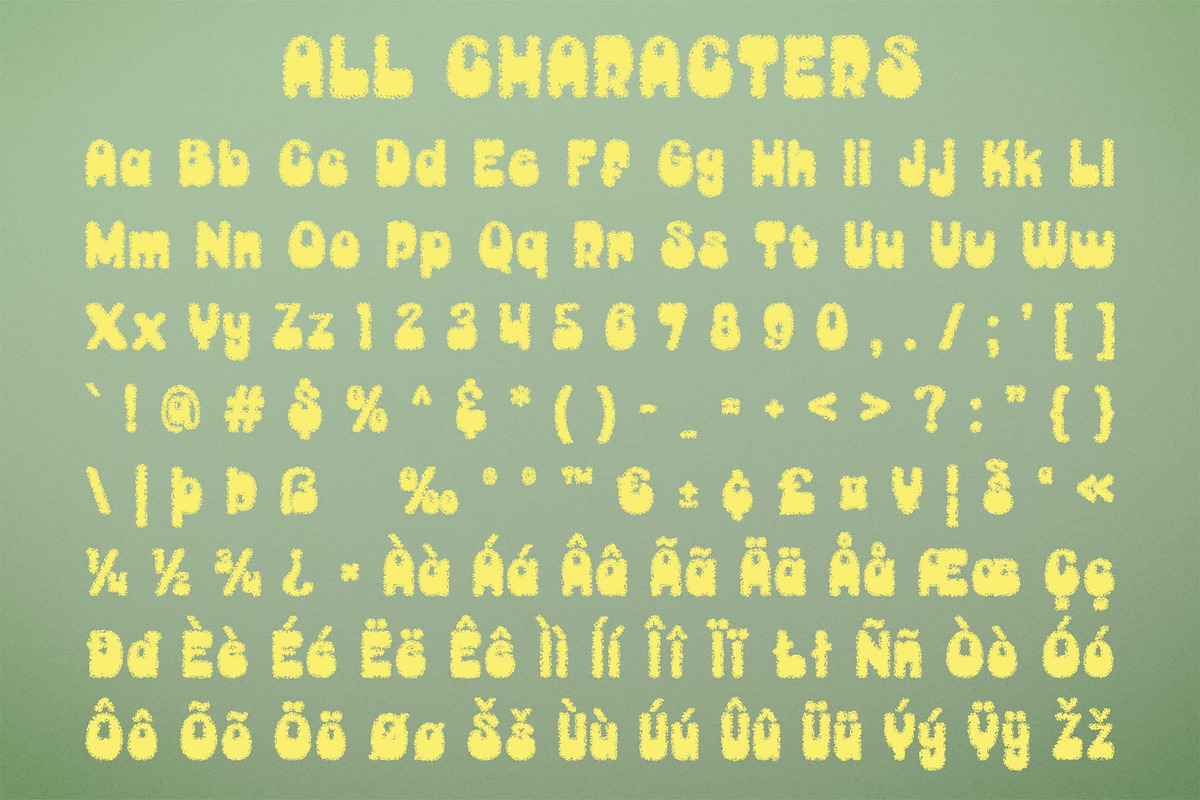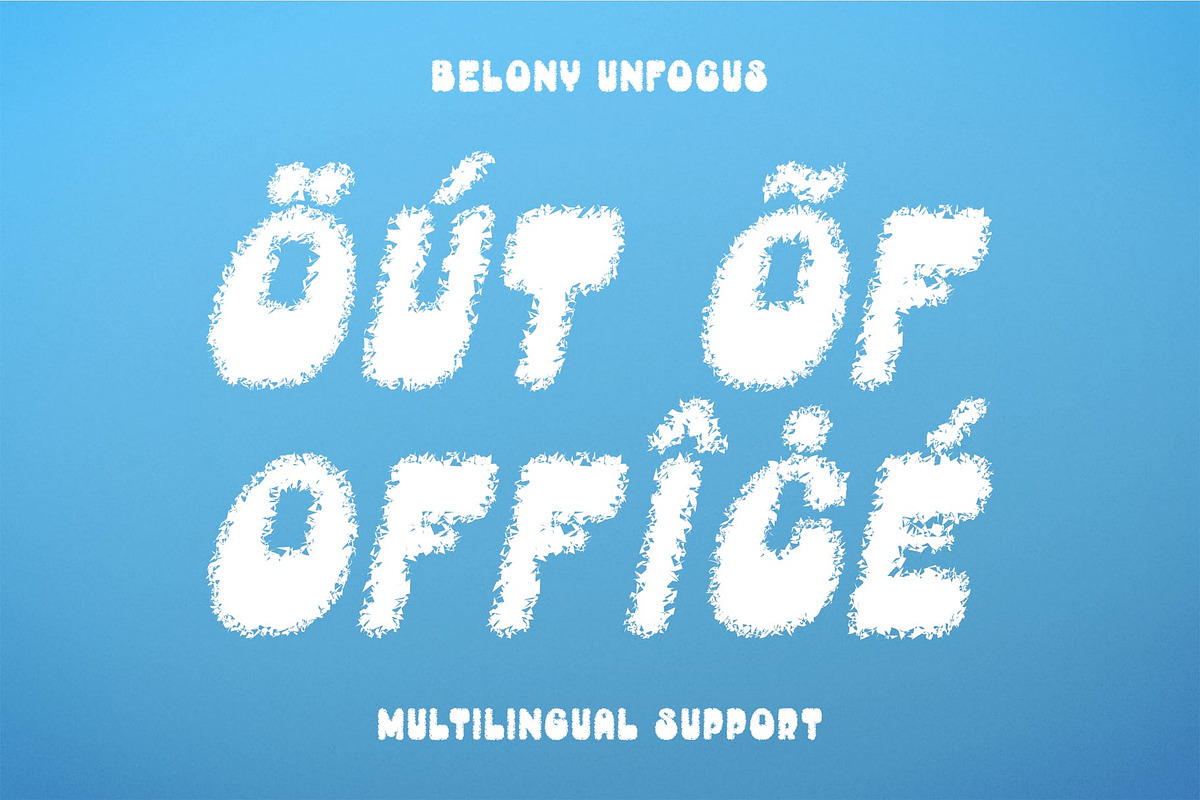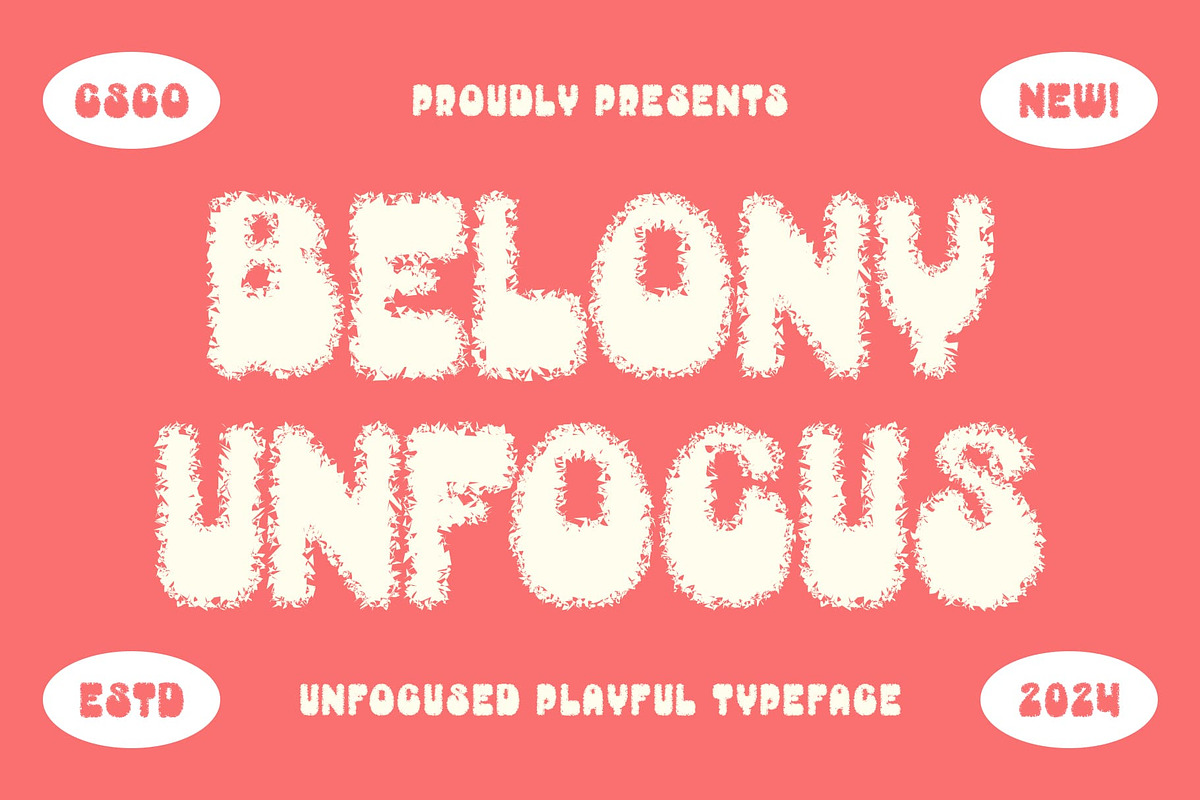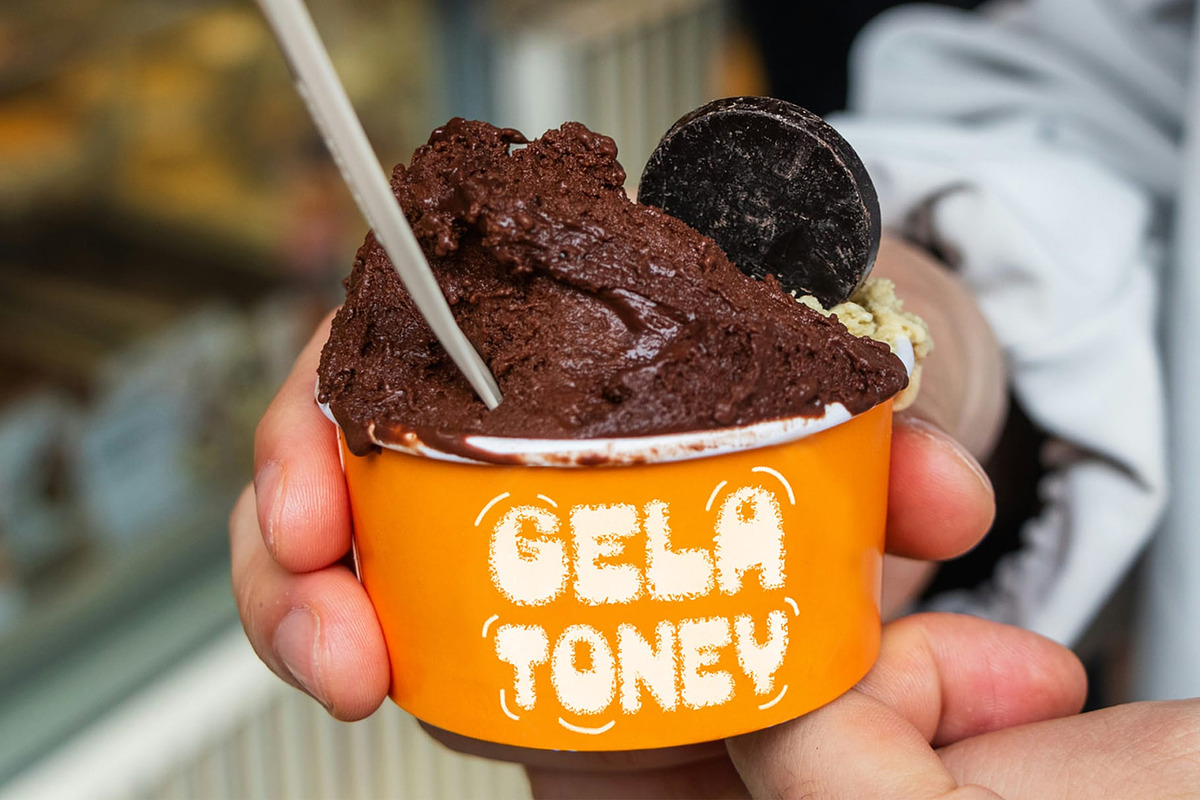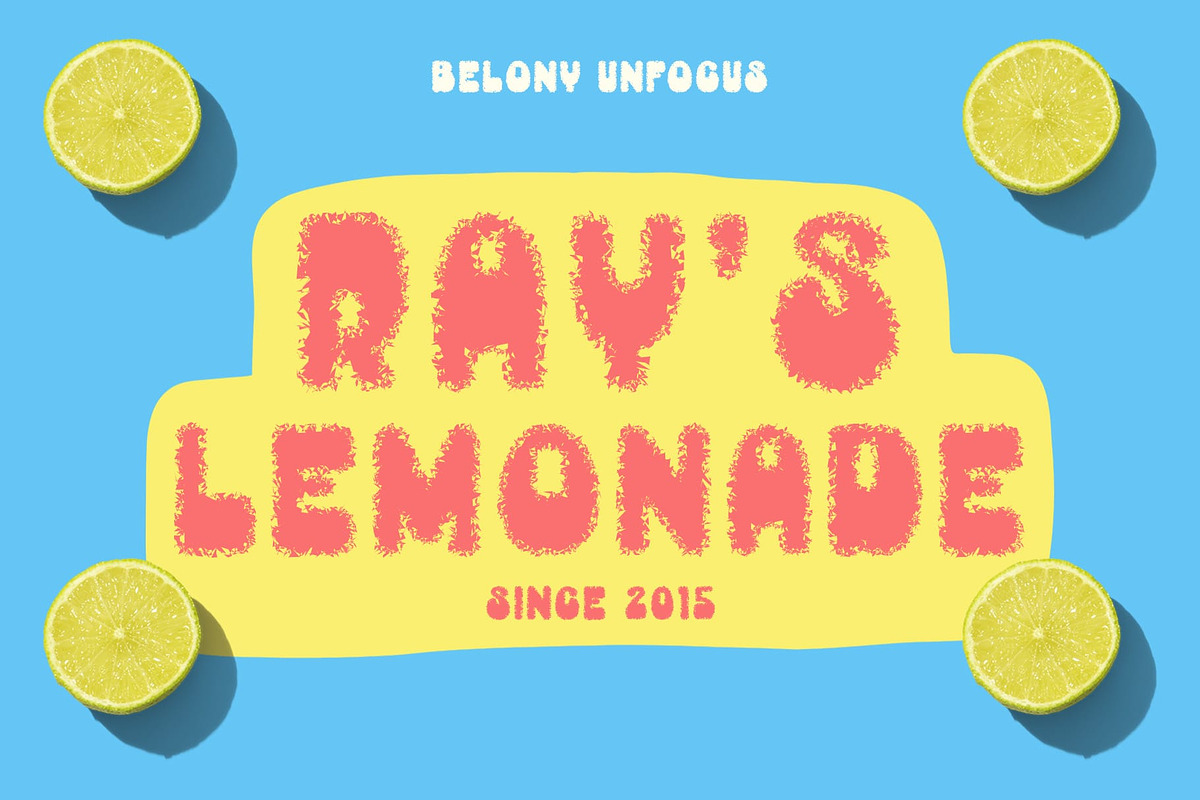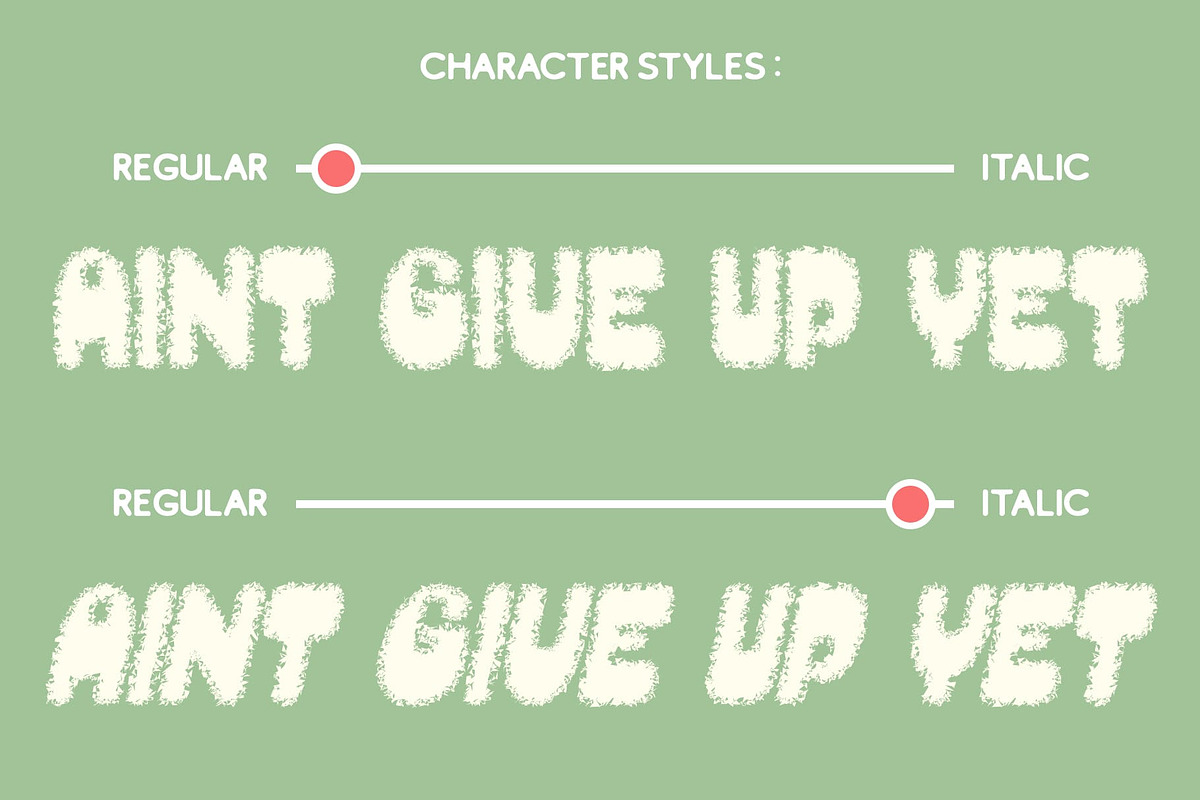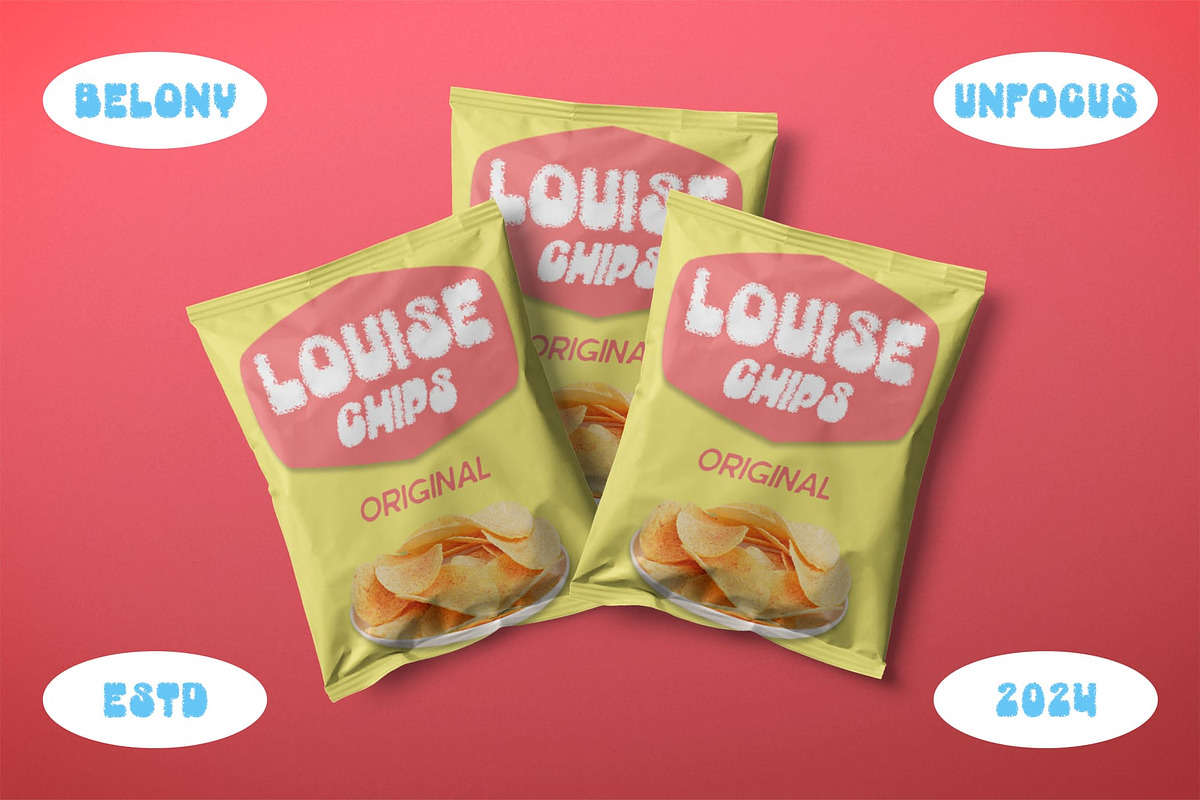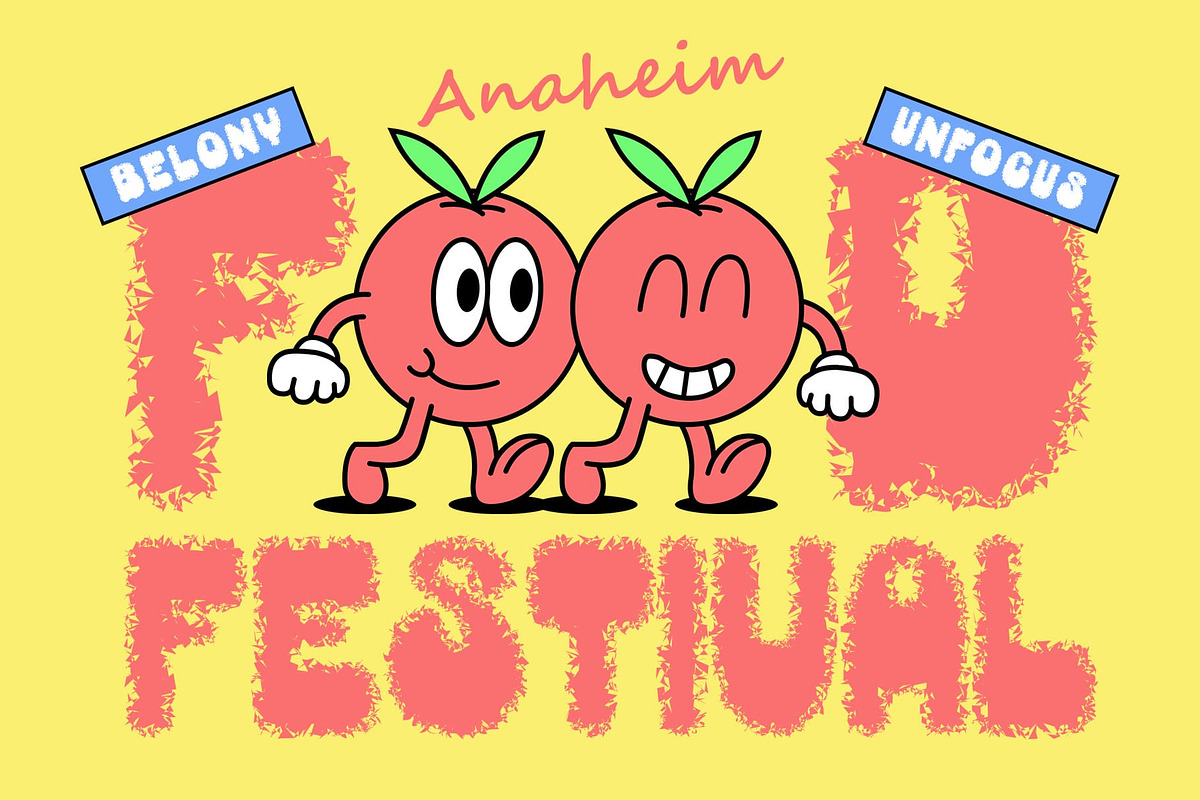
Belony Unfocus
Belony Unfocus: Where Cheerfulness Meets Unfocus
Cute and Bubbly Sans Serif Design
Belony Unfocus is a cute and bubbly sans-serif font with an unfocused style, perfect for designs that aim for a cheerful and attention-grabbing look. Its playful appearance adds a touch of whimsy, making it ideal for social media designs with a cheerful theme.
Versatile and Attention-Grabbing
With its versatile design, Belony Unfocus Font is suitable for a variety of uses, including social media posts, posters, and branding. Its bubbly style adds a fun and friendly flair, ensuring that your designs capture attention and spread joy.
Enhanced Visual Cheerfulness
Belony Unfocus Font prioritizes visual cheerfulness, ensuring that your designs exude positivity and warmth. Whether used in print or digital media, this font adds a lively and playful element that resonates with viewers.
Perfect for Social Media Designs
Whether you’re creating Instagram posts, Facebook covers, or Twitter headers, Belony Unfocus Font is the perfect choice for projects that require a cheerful and attention-grabbing look. Its cute and bubbly style ensures that your social media designs will always look inviting and engaging.
- Belony Unfocus Regular
- Belony Unfocus Italic